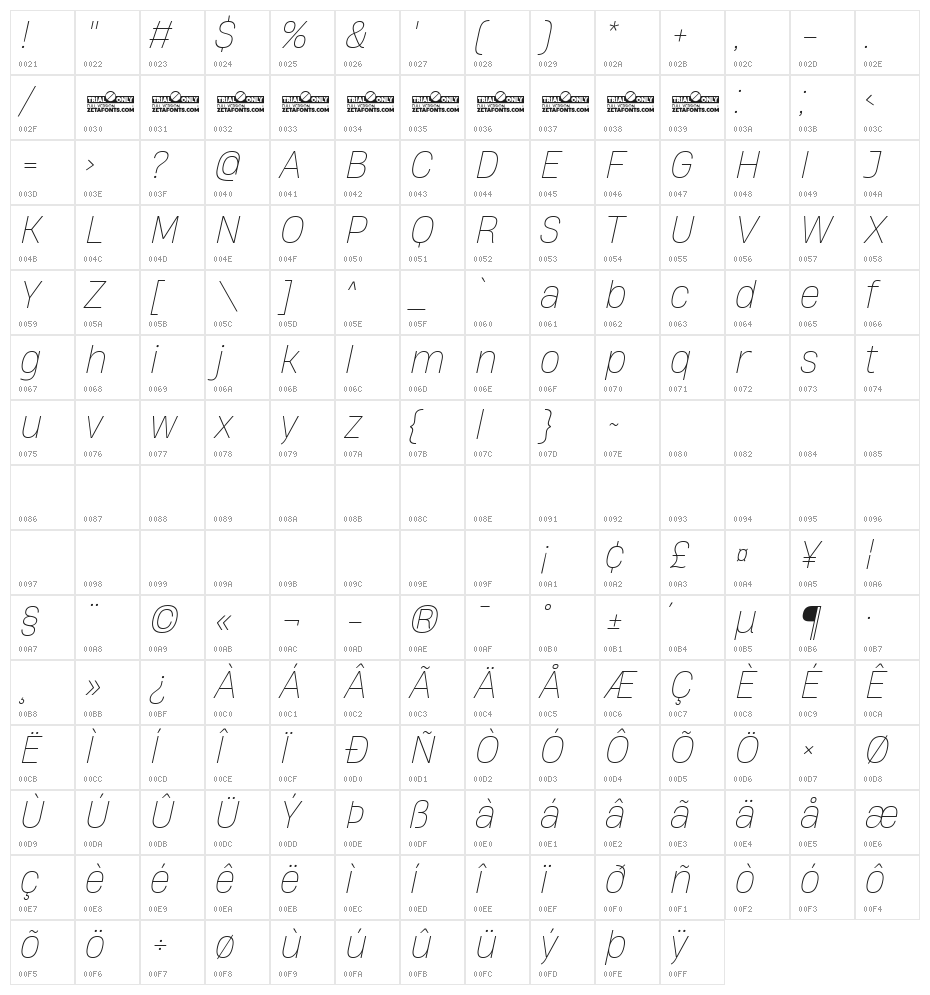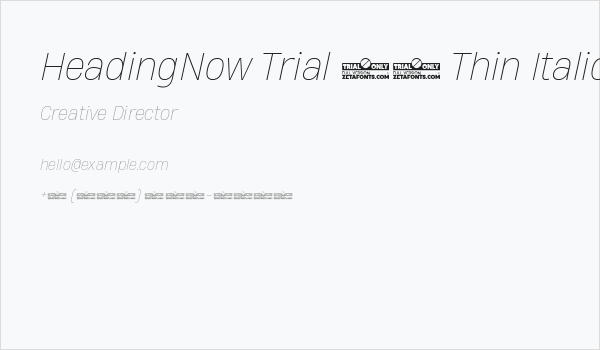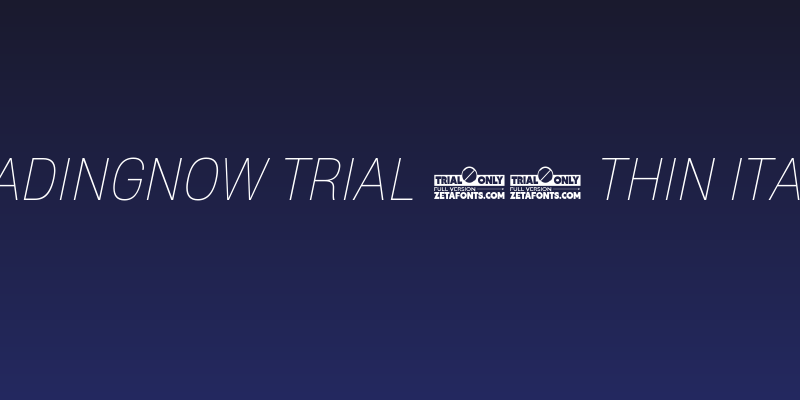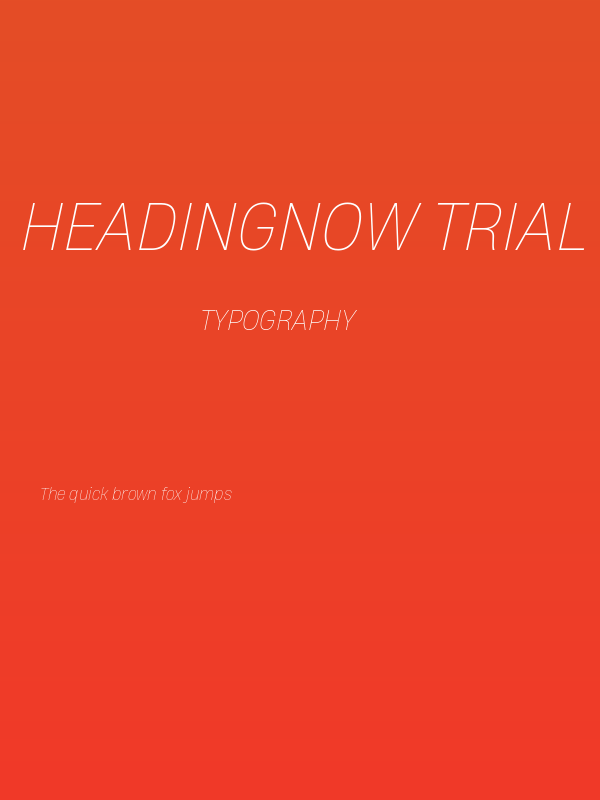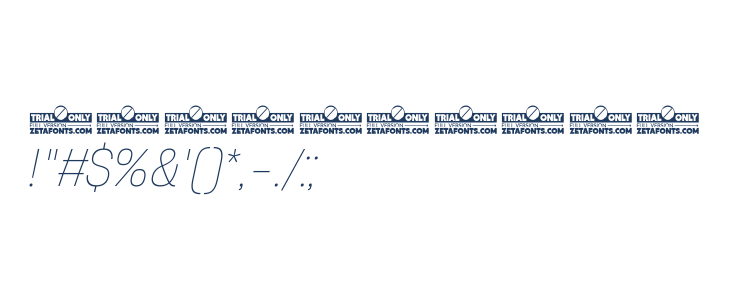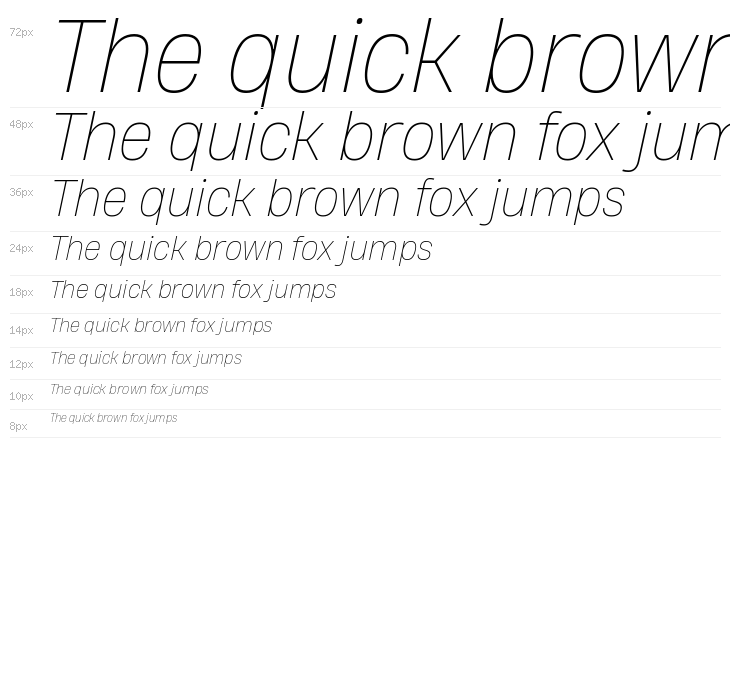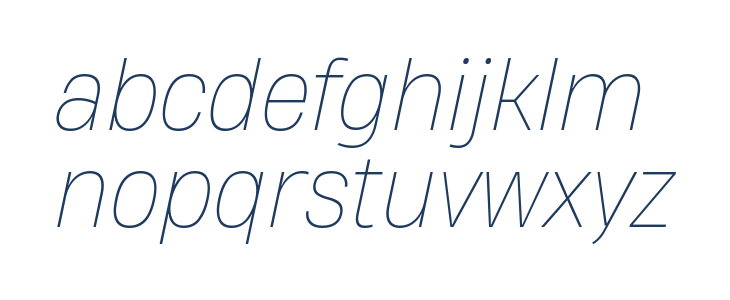
HeadingNow Trial 61 Thin Italic Font
HeadingNow Trial 61 Thin Italic Description
This font features a sleek and modern design with thin, elegant strokes that give it a refined appearance. The italic style adds a dynamic and sophisticated touch, making it suitable for contemporary design projects. The characters are well-proportioned with a slight slant, enhancing readability while maintaining a stylish look. The font includes a full set of uppercase and lowercase letters, numbers, and a variety of special characters, ensuring versatility for different applications.